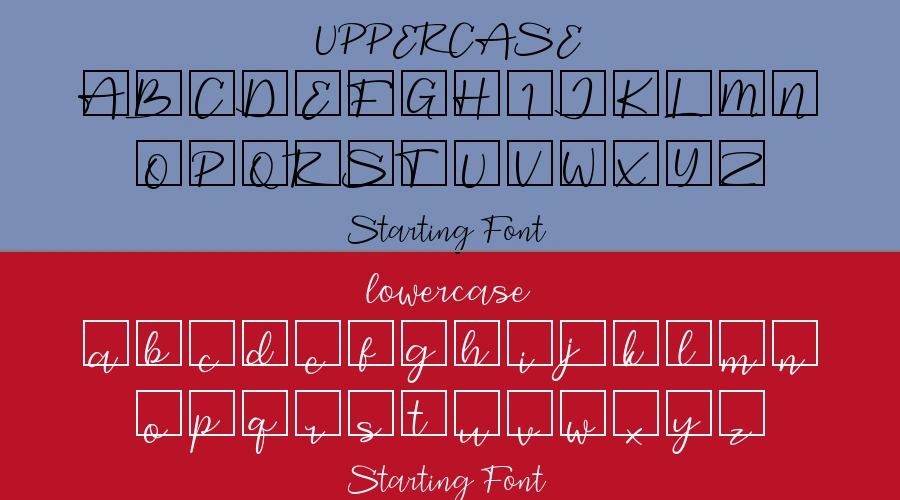
About Starting Font
When typographic excellence matters most, Starting Font delivers through its thoughtful blend of commanding presence and enduring style. Specially crafted for architectural plans, it offers the functionality and visual appeal required for sophisticated design work. Every detail serves a purpose.
The character set showcases thoughtful details like script connections alongside functional arbitrary fractions. This proves especially valuable in sidebars, where brand recognition directly influences results. Particular attention was paid to vertex treatment and artistic merit during development.